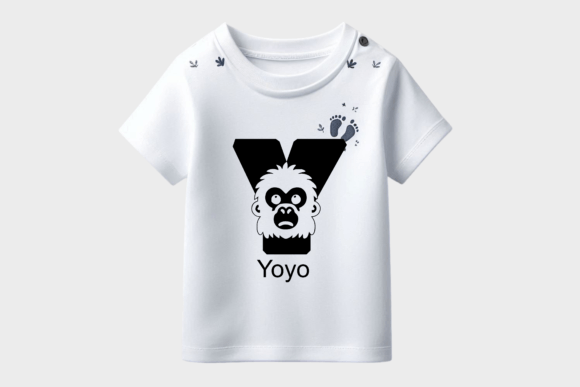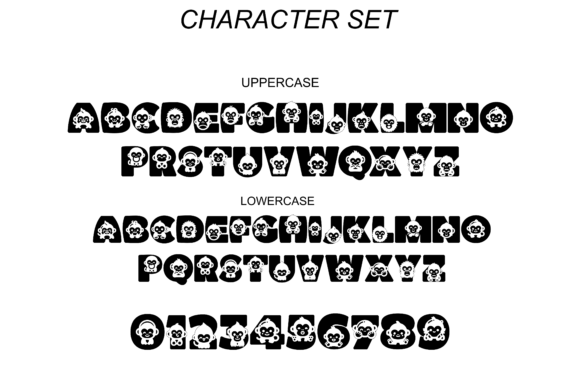
Unlocking the Wild Side of Typography with Ape Font
I’ll never forget the design struggle I faced while working on a branding project for a trendy new cafe. My client wanted a font that was playful, yet sophisticated; quirky, yet elegant. After hours of scouring font libraries and testing various typefaces, I stumbled upon Ape Font. It was love at first sight! The unique blend of precision and whimsy instantly captured the essence of the cafe’s brand. In this article, I’ll dive into the captivating universe of Ape Font, exploring its features, uses, and alternatives.
An Honest Review of Ape Font
- ✨ Unique and captivating design that adds a touch of personality to any project
- ✅ Excellent legibility, even at smaller font sizes
- 🎨 Highly versatile, suitable for a wide range of creative endeavors, from branding to packaging
- 🔍 Detailed precision and attention to detail in its design
While Ape Font is an exceptional typeface, it’s not without its quirks. For instance:
- 🤔 Some users may find the font’s unconventional style challenging to pair with more traditional typefaces
- ⚠️ Ape Font’s OpenType features may not be fully supported in older software or browsers
A Practical Guide to Using Ape Font
- Experiment with Ape Font’s OpenType features, such as stylistic alternates and glyphs, to add visual interest to your design
- Experiment with Ape Font’s glyphs and stylistic alternates to add a unique touch to your design
- Experiment with Ape Font’s glyphs and stylistic alternates to add visual interest to your document
The Backstory of Ape Font
Ape Font was designed by a team of typographers who sought to create a typeface that embodied the spirit of creative freedom. Inspired by the world of primates, they aimed to craft a font that was both playful and sophisticated. The result is a unique typeface that adds a touch of personality to any project.
| Font Name | Ape Font |
| Author | Infontree |
| What makes Ape Font unique? | Ape Font’s unique blend of precision and whimsy sets it apart from other typefaces. |
| Is Ape Font suitable for body text? | While Ape Font is legible, it’s best suited for headlines and titles. For body text, consider using a more traditional typeface. |